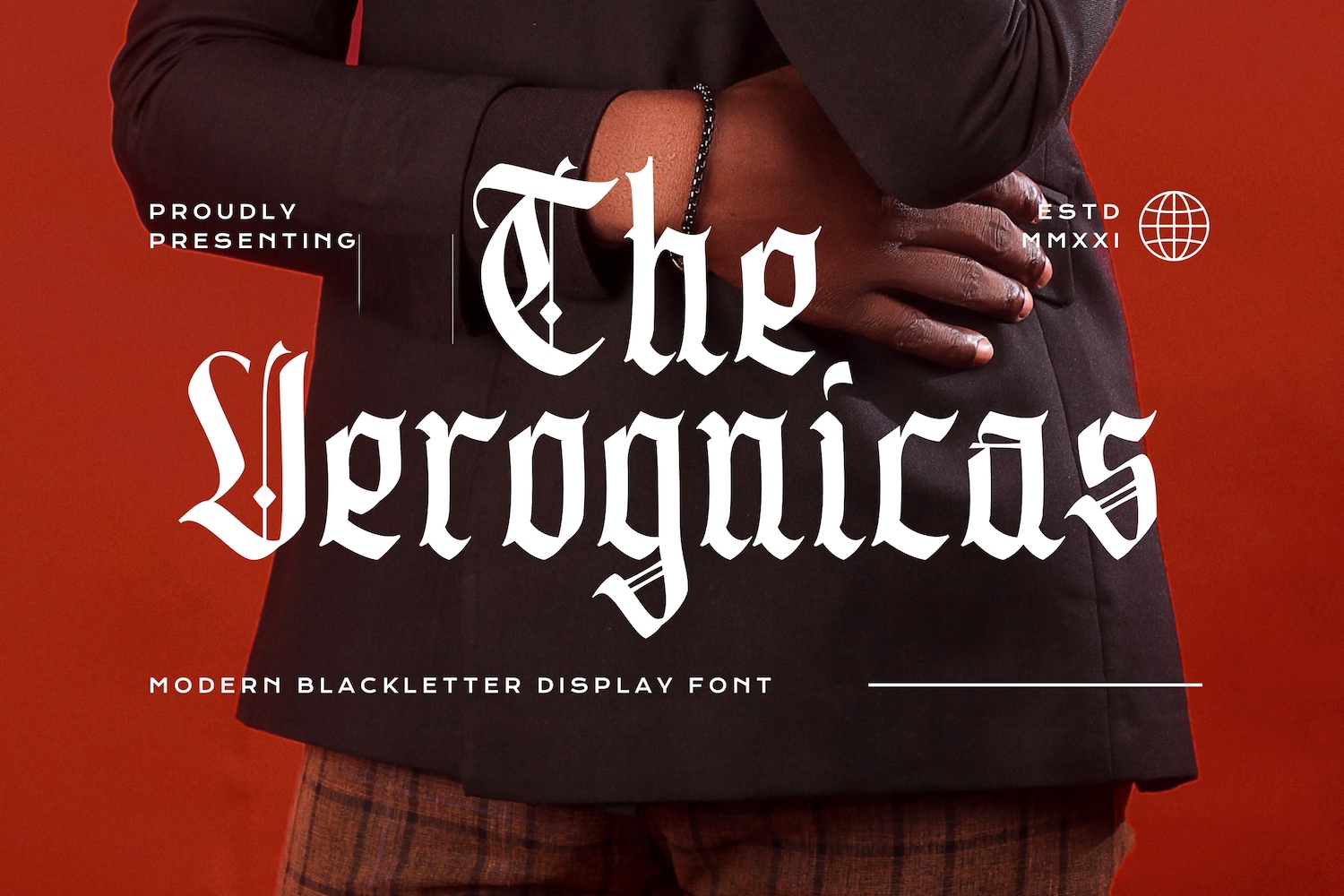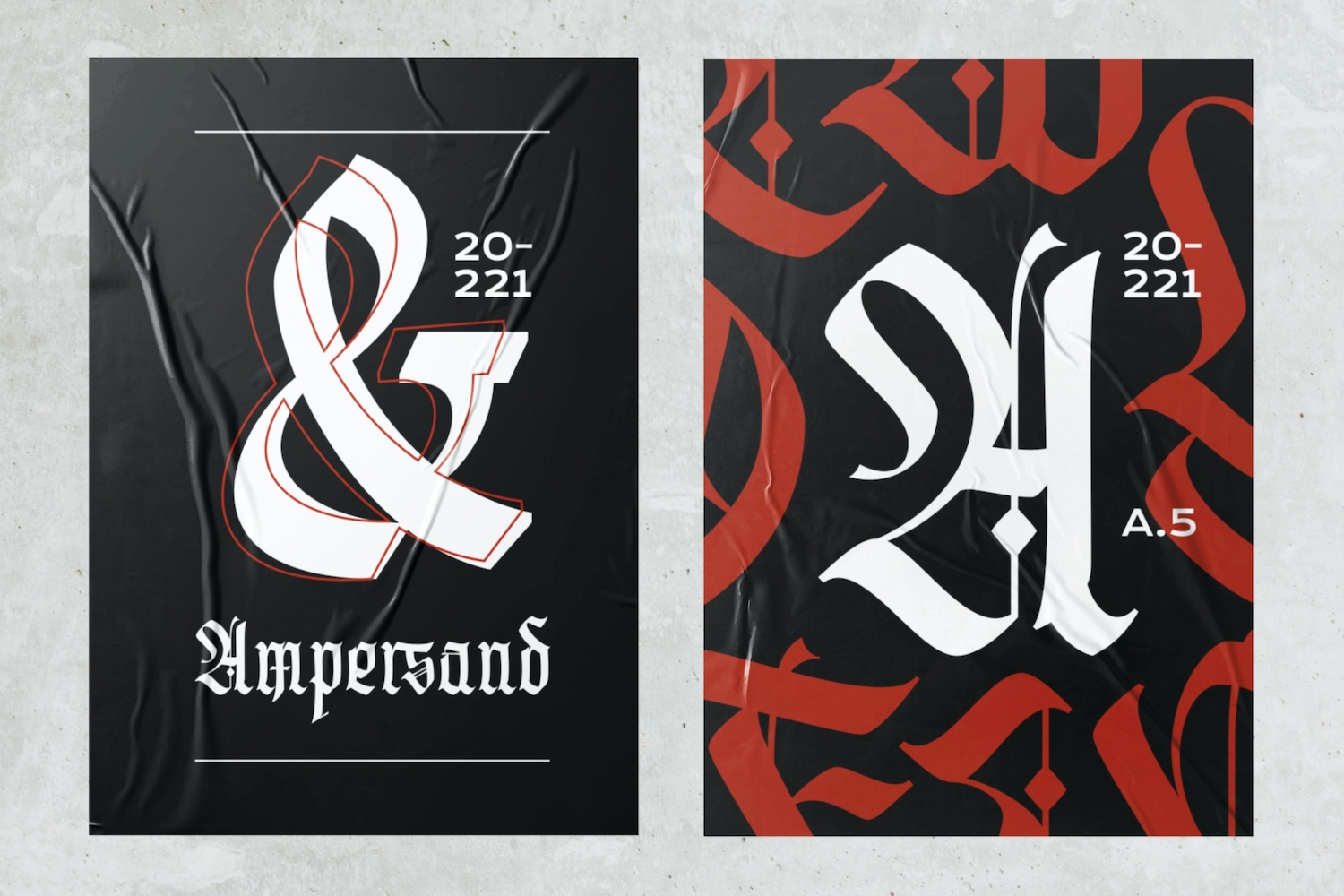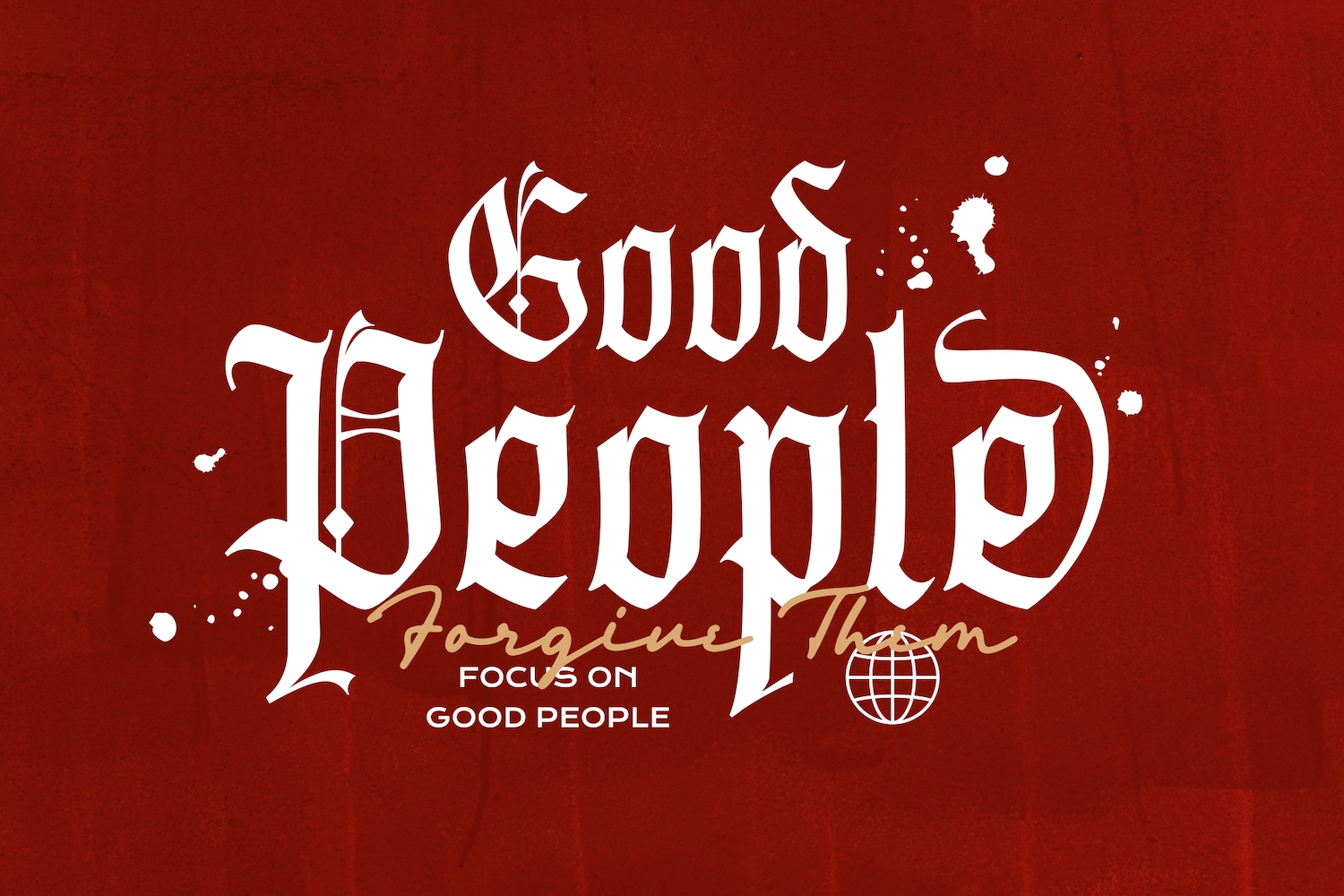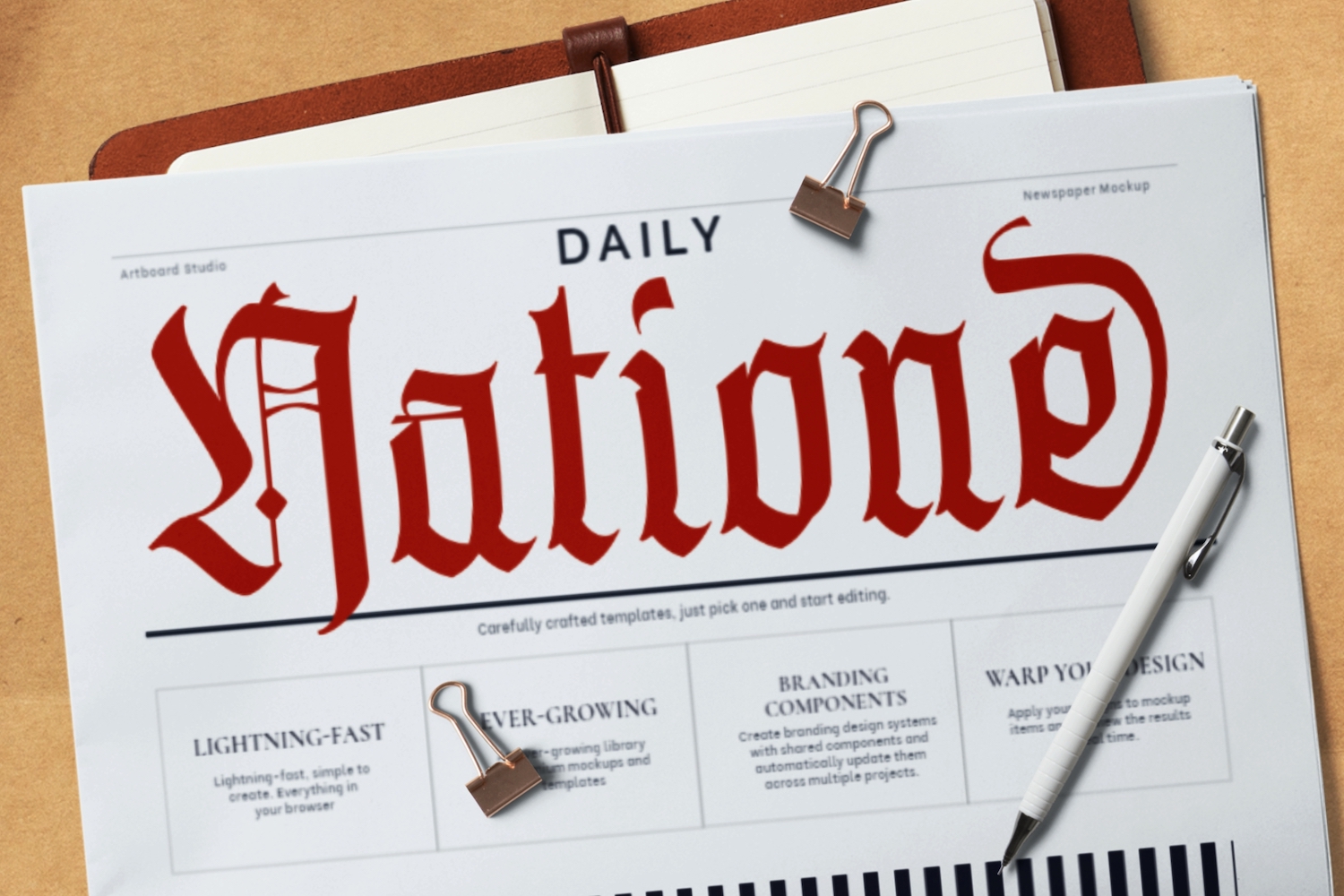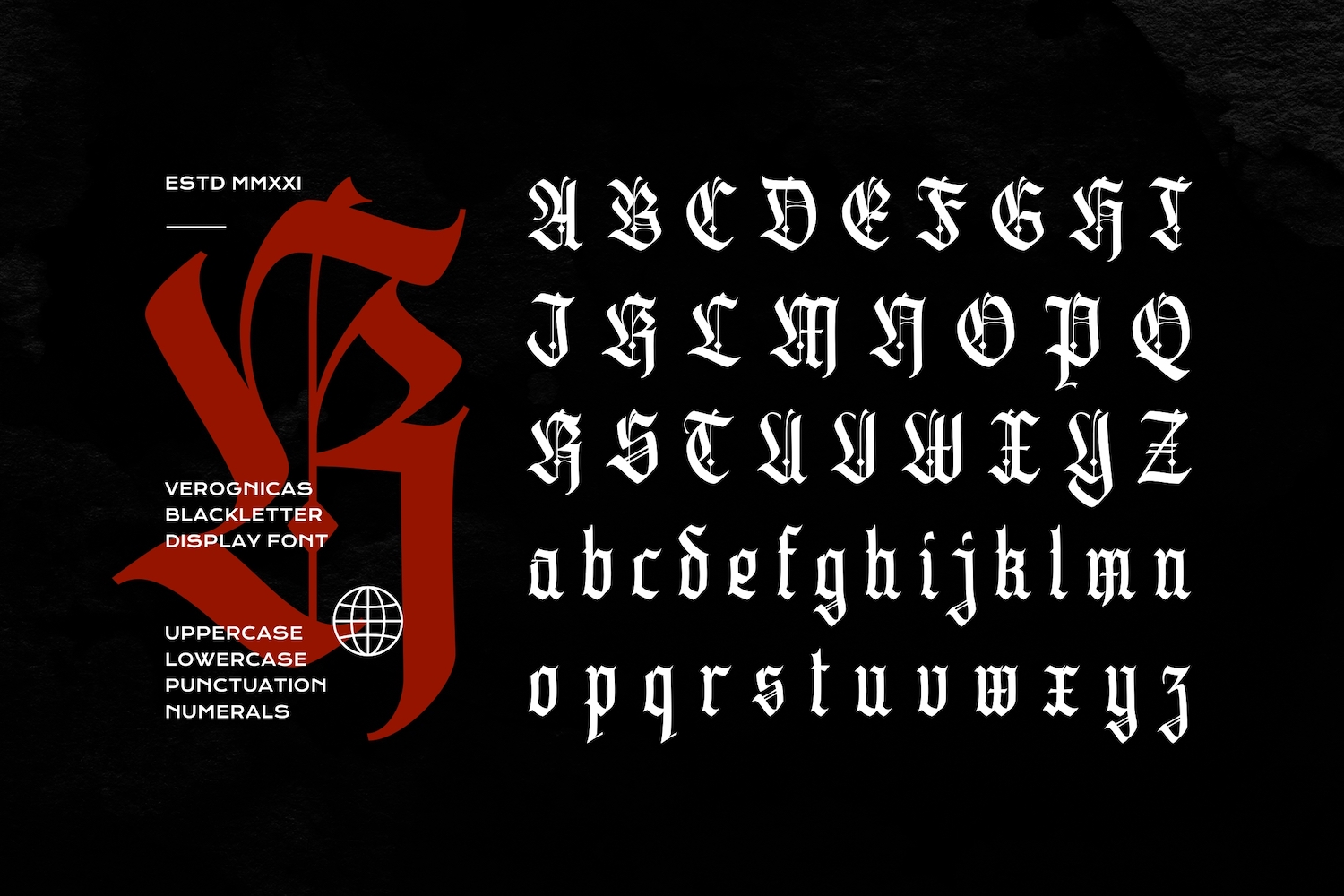
Verognicas is a bold and expressive modern blackletter font that blends Gothic tradition with a contemporary twist. Its sharp strokes, high contrast, and ornamental features evoke a sense of authority and elegance, making it ideal for branding, editorial headlines, tattoos, music album covers, and vintage-inspired merchandise. The distinctive ampersands, uppercase detail, and medieval construction give it a unique visual identity that stands out in both print and digital media.
With a complete set of uppercase and lowercase characters, numerals, and punctuation, Verognicas is designed for creatives who want to infuse their designs with power, legacy, and character. Its structured flow and dramatic curves make it a great choice for logos, posters, magazine mastheads, or streetwear graphics. Whether used in gothic compositions or modern layouts, Verognicas delivers a statement of timeless boldness.